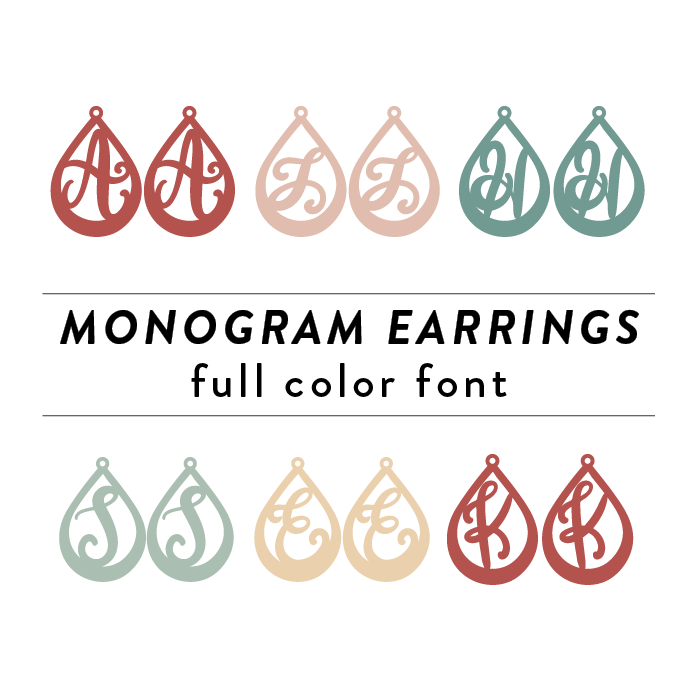
Monogram Earrings Full Color Font is a decorative font design featuring intricate curved line shapes that form elegant letters. This unique font is perfect for creating personalized monogram earrings that stand out with vibrant colors and a stylish, sophisticated look. Perfect for adding a touch of glamour to any outfit or gift. This font is a OTF craft font that will appear in color only when used with the silhouette software.